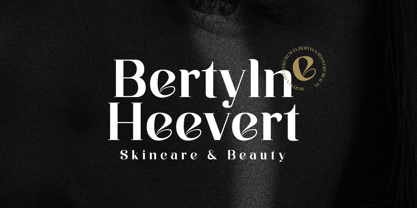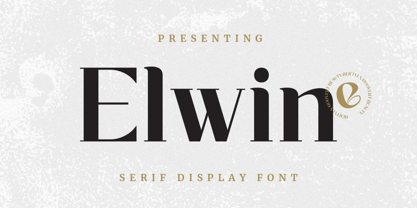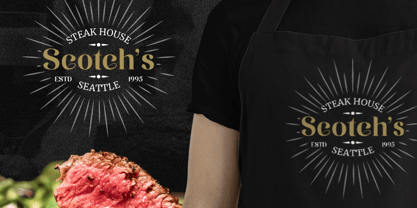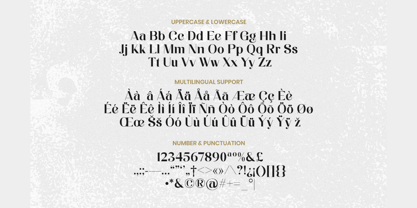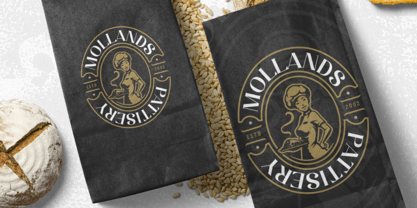
Elwin
Die Schriftfamilie Elwin wurde von Aulia Savira Putri entworfen und von Imoodev veröffentlicht. Elwin enthält 1 Stile. Mehr über diese Familie
Elwin is an elegant and timeless serif display font that effortlessly blends classic style with modern sophistication. Its sharp, clean serifs and gracefully crafted letterforms make it perfect for projects that require a touch of class.
It excels in branding, logotypes, headlines, magazine layouts, and editorial design. Whether you're designing for high end fashion, beauty and skincare, artisanal food packaging, or sophisticated wedding invitations, Elwin brings an air of refinement and professionalism to your work.